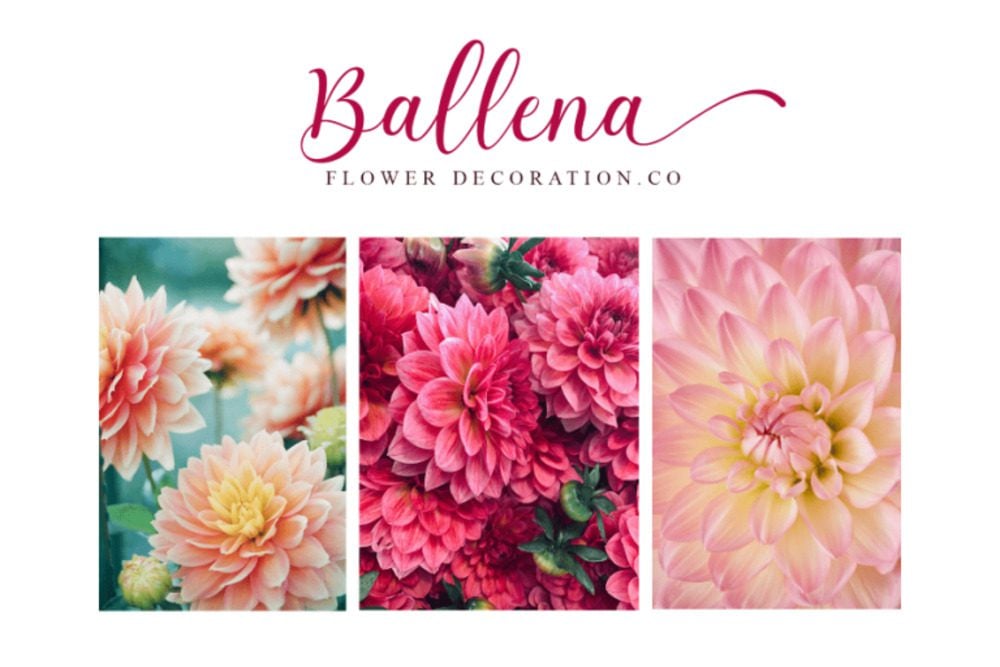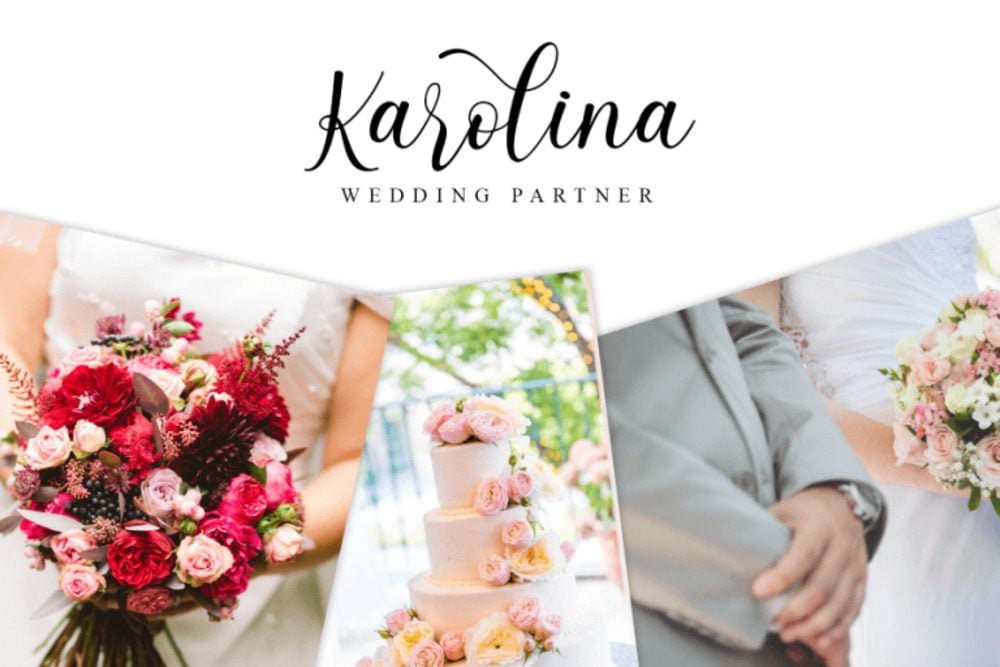
Belisha Font
Belisha is a chic and contemporary calligraphy font characterized by its bold contrasts and refined details. With elegant curves, sharp serifs, and stylish letterforms, it exudes sophistication and versatility. Perfect for headlines, branding, and editorial design, Belisha combines timeless elegance with a modern edge, enhancing the visual appeal of any project.